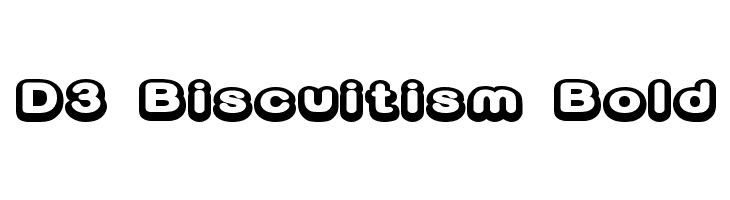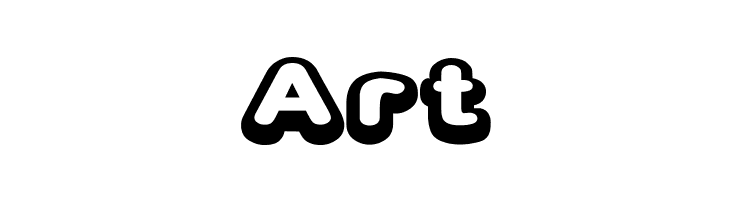
A bold, playful font with rounded edges and a friendly appearance.
A bold, playful font with thick, rounded letters and a lively style.
A bold, playful font with rounded, thick strokes and a cartoonish style.
A bold, outlined font with a playful and three-dimensional appearance.